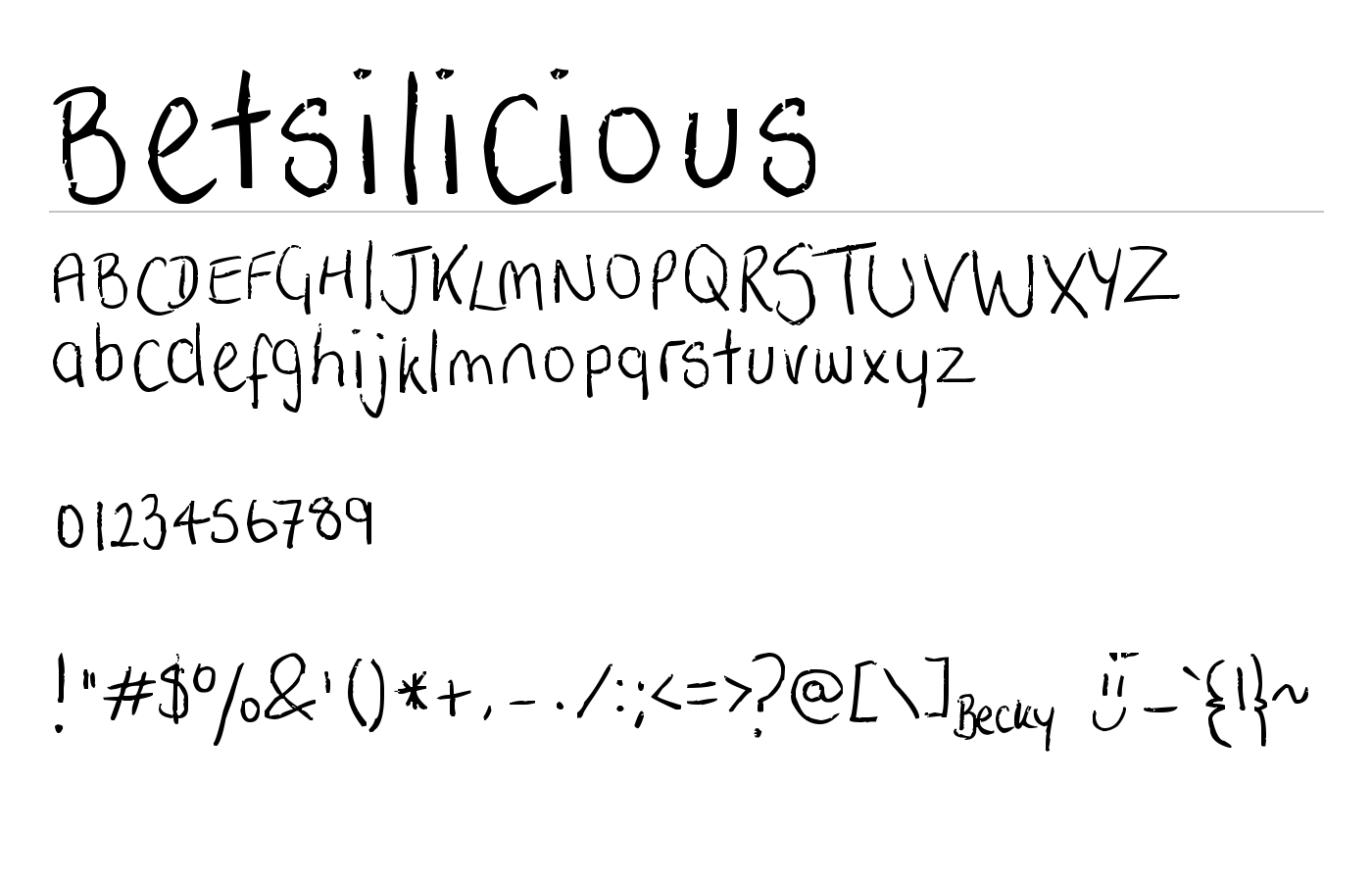
Betsilicious is a casual handwritten font with a playful and slightly rough texture that adds character and warmth to any design. Its uneven strokes and unique letterforms give it an organic, hand-drawn feel, making it perfect for creative projects, informal branding, and personal touches. This font works well for invitations, greeting cards, and eye-catching headlines where a friendly and approachable vibe is desired.
Betsilicious Font
About Betsilicious Font